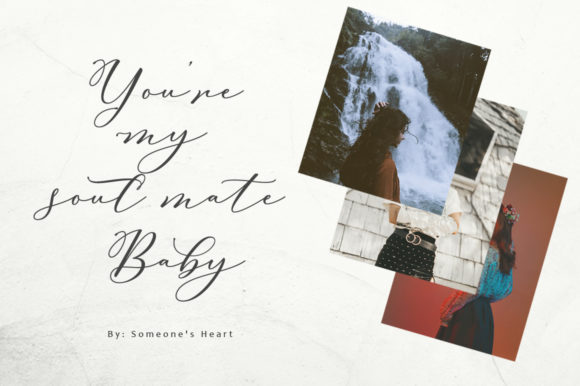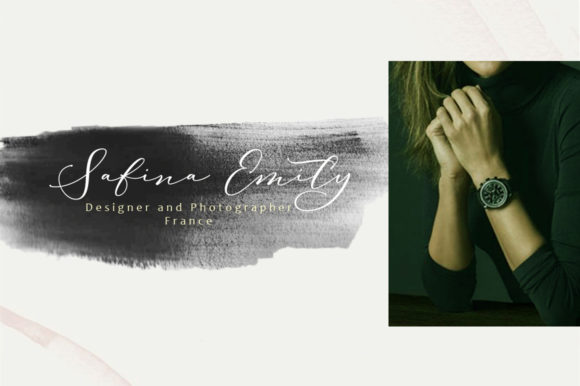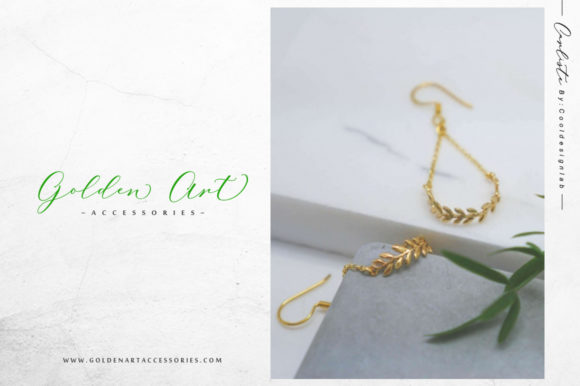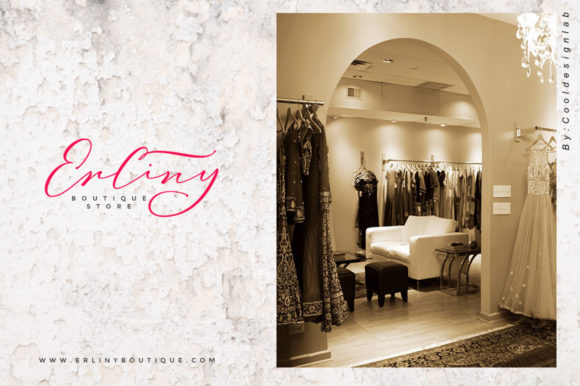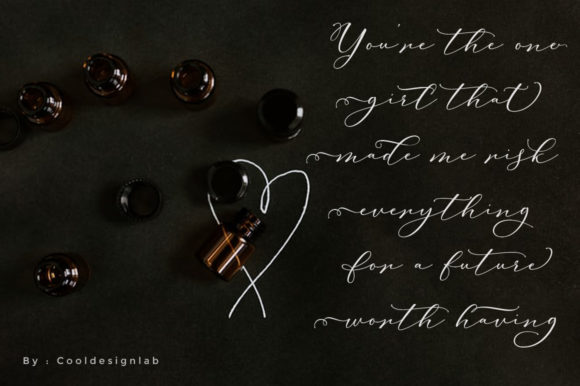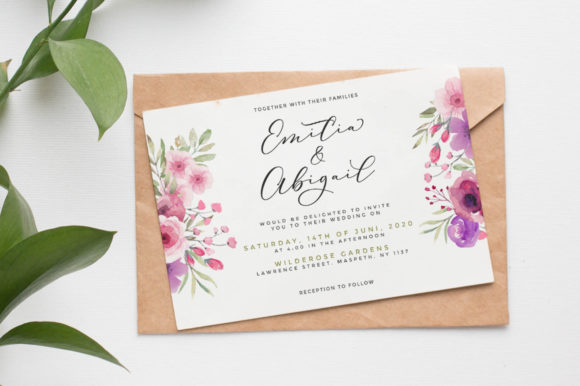
Unlock the Luxe Feel of Your Designs with Carliste Script Font
Do you remember the excitement of creating your first wedding invitation or a custom birthday card? The thrill of bringing a special message to life with your own unique touch? For designers, those moments are a staple of our creative journey. And when it comes to elevating our designs to the next level, a beautiful font can make all the difference.
Enter Carliste Script Font – a stunning, classic script that exudes luxury and sophistication. This decorative font is perfect for adding a touch of elegance to any project, from wedding stationery to branding materials. Its versatility and high-end feel make it a valuable asset for designers looking to elevate their work and leave a lasting impression on their audience.
Key Features of Carlisle Script Font
- Unique Characteristics: The Carlisle Script Font is a highly customizable and versatile script font, featuring a range of ligatures, swashes, and alternate characters that can be used to create unique and elegant typography.
- Font Style: The Carlisle Script Font is a beautiful and elegant script font, perfect for use in wedding invitations, branding, packaging, and other design projects where a touch of sophistication is required.
Designer Review: Carliste Script Font
Overall, I’d say Carliste Script Font is a beautifully crafted script font that can elevate any design project. ✨
Here are some of its standout features:
- Unique, elegant design that adds a touch of sophistication to any text.
- Perfect for logo designs, branding, and other creative projects where you want to make a statement.
- Comes in a variety of styles, including regular, bold, and italic, giving you plenty of options to choose from.
- Some users may find the font to be a bit too ornate or over-the-top, which can be a drawback for more minimalist designs.
- The font may not be suitable for body text, as it can be difficult to read at smaller font sizes.
- There are some minor kerning issues, especially when combining the font with other fonts.
Overall, I think Carliste Script Font is a great choice for designers who want to add a touch of elegance and sophistication to their projects. Just be mindful of its limitations, and use it sparingly to avoid overwhelming your design.
The Carliste Script Font is ideal for creating elegant and sophisticated designs. Some common use cases include:
– Luxury brand logos and packaging
– High-end marketing materials and advertisements
– Personalized gifts and stationery
– Digital designs and graphics